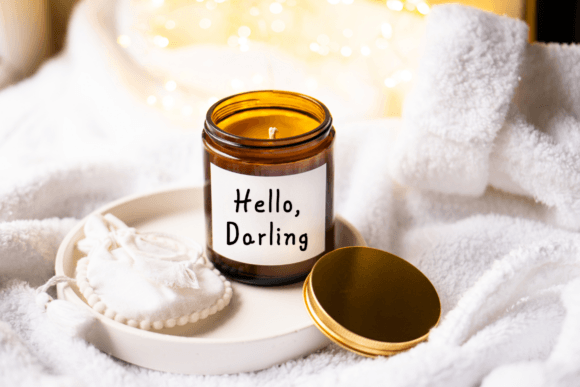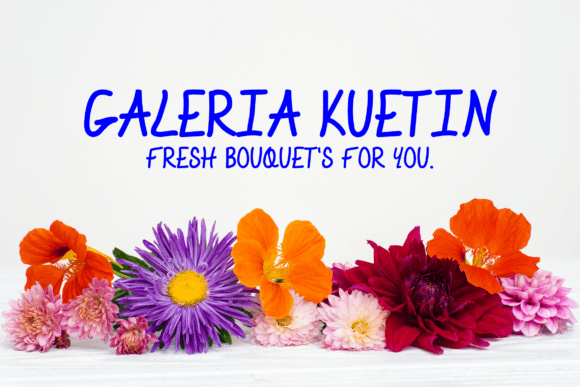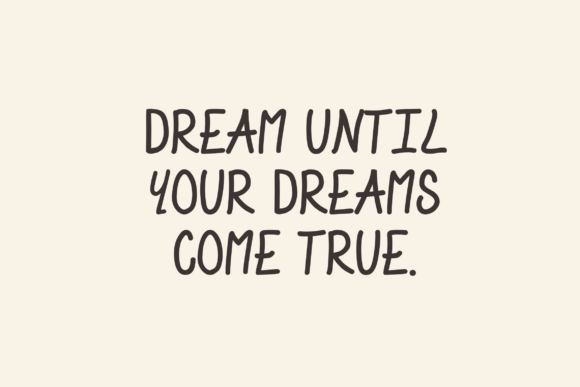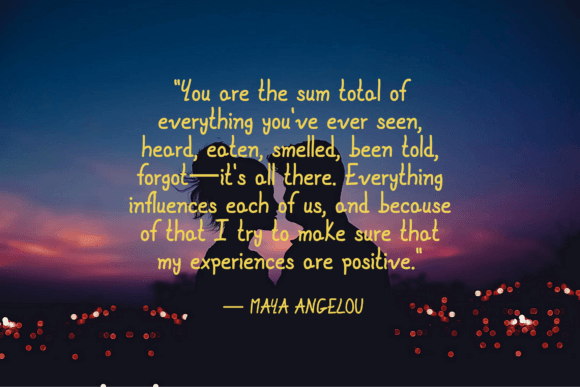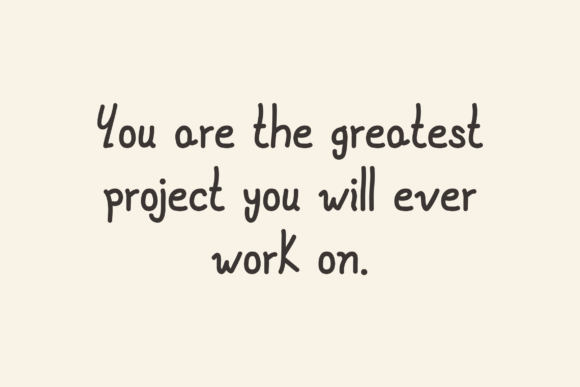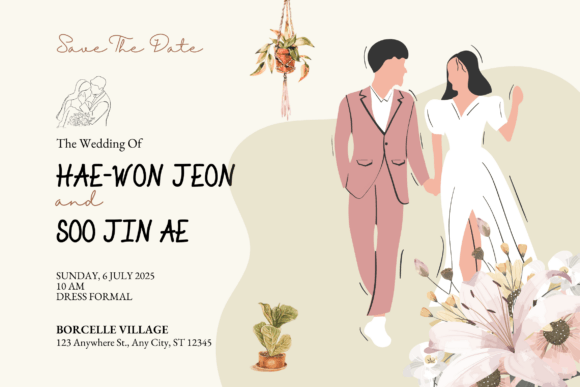
Introducing Drunch Handmade Font – Your Go-to Bold and Vibrant Typeface
In the realm of typography, a font can make all the difference in capturing the essence of a brand, product, or creative project. If you’re on the hunt for a typeface that exudes energy, playfulness, and a dash of handmade charm, look no further than Drunch Handmade Font. This meticulously crafted font is poised to revolutionize your design endeavors, whether you’re a seasoned designer or a crafty enthusiast.
The Allure of Drunch Handmade Font
Drunch Handmade Font is more than just a typeface – it’s an experience. Painstakingly hand-drawn, each letter and character has been carefully crafted to infuse your projects with a unique, human touch. The result is a bold and vibrant font that shines in a myriad of applications, from captivating logos and eye-catching posters to alluring crafts and beyond.
Key Features of Drunch Handmade Font
- Comprehensive Character Set: Drunch boasts an extensive character set, ensuring that you have access to a wide range of letters, symbols, and glyphs to bring your creative visions to life.
- Handmade with Love: Every character has been meticulously hand-drawn, giving Drunch its distinctive, one-of-a-kind charm.
- Versatile Applications: From branding and advertising to crafting and DIY projects, Drunch’s versatility knows no bounds.
Unleashing Your Creativity with Drunch
Drunch Handmade Font is more than just a tool – it’s a gateway to a world of typographic creativity. Whether you’re designing a logo, crafting a poster, or simply looking to add a personal touch to your DIY projects, Drunch provides the perfect blend of visual allure and creative freedom.
Design Applications
For designers, Drunch offers a treasure trove of possibilities:
- Logo Design: Create memorable and impactful logos that stand out in a crowded marketplace.
- Poster Design: Craft eye-catching posters that grab attention and leave a lasting impression.
- Branding: Develop a cohesive brand identity that resonates with your audience.
Crafting and DIY Projects
For crafters and DIY enthusiasts, Drunch opens up new avenues for creative expression:
- Crafting: Add a personal touch to your handmade crafts, cards, and gift tags.
- DIY Projects: Elevate your DIY projects, such as signage, banners, and home decor, with a touch of handmade charm.
Tips for Using Drunch
- Experiment with Colors: Drunch looks great in a variety of colors, so don’t be afraid to experiment and find the perfect hue for your project.
- Mix and Match: Combine Drunch with other fonts to create visually striking contrasts and add depth to your designs.
- Play with Sizes: Drunch’s bold and vibrant design makes it perfect for use in a range of sizes, from large headings to smaller body text.
In conclusion, Drunch Handmade Font is a game-changer for designers and crafters alike. Its unique blend of handmade charm, comprehensive character set, and effortless installation makes it the perfect addition to any creative toolkit. So why wait? Dive into the world of typographic creativity with Drunch Handmade Font today and discover a world of limitless possibilities.